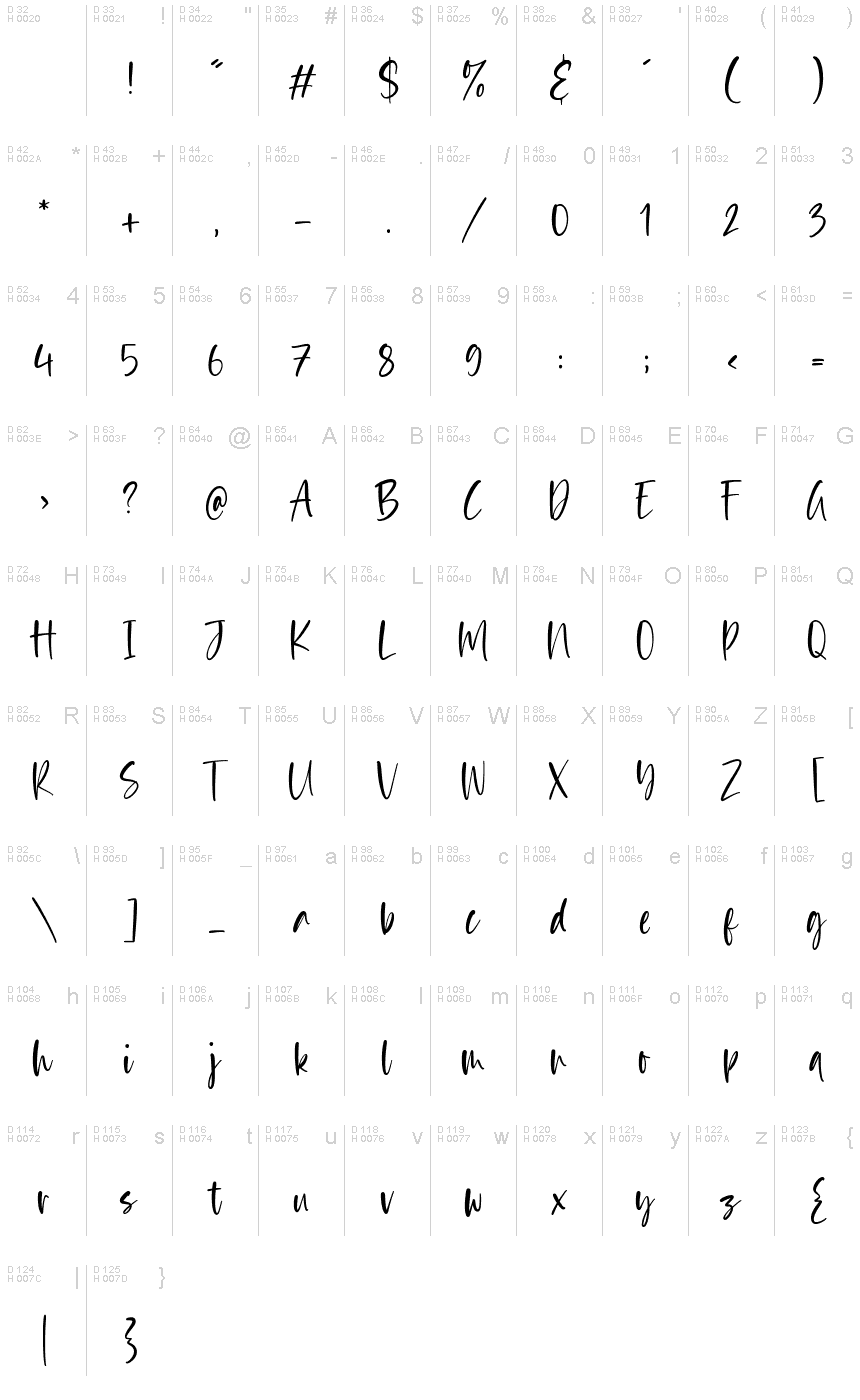
Brightstone
Brightstone, a charming handwritten font by Balpirick Studio, brings a delightful touch to your projects.
Its semi-light weight and semi-condensed width make it perfect for creating eye-catching headlines, logos, and branding materials. Capture attention with its artistic flair in wedding invitations, greeting cards, and personalized stationery. Stand out on social media with captivating captions and quotes that evoke warmth and authenticity. Brightstone adds a playful yet sophisticated vibe to children's books, packaging designs, and craft projects.